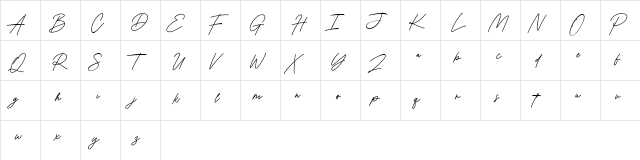
Suarte Free Regular
| Foundry | MaulanaCreative |
| Designer | MaulanaCreative |
Design Context for Suarte Free Typeface
Suarte Free is a composed and adaptable typeface that performs quietly and consistently across a wide range of design contexts.